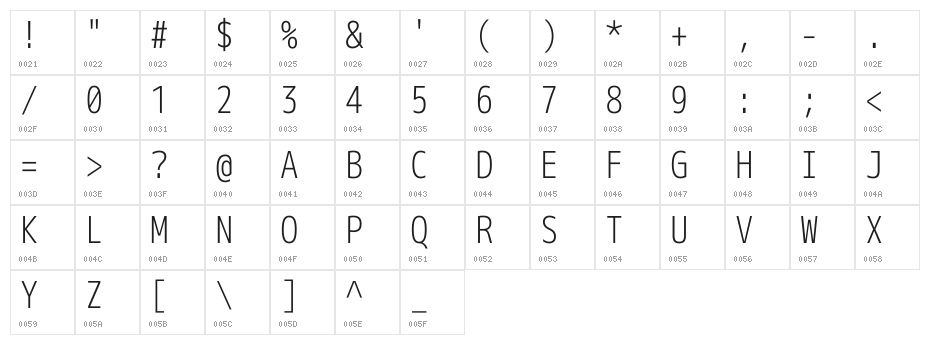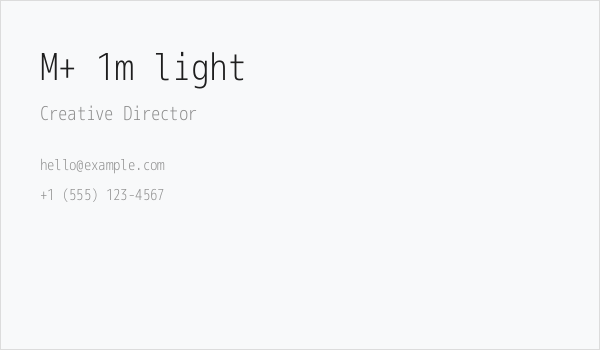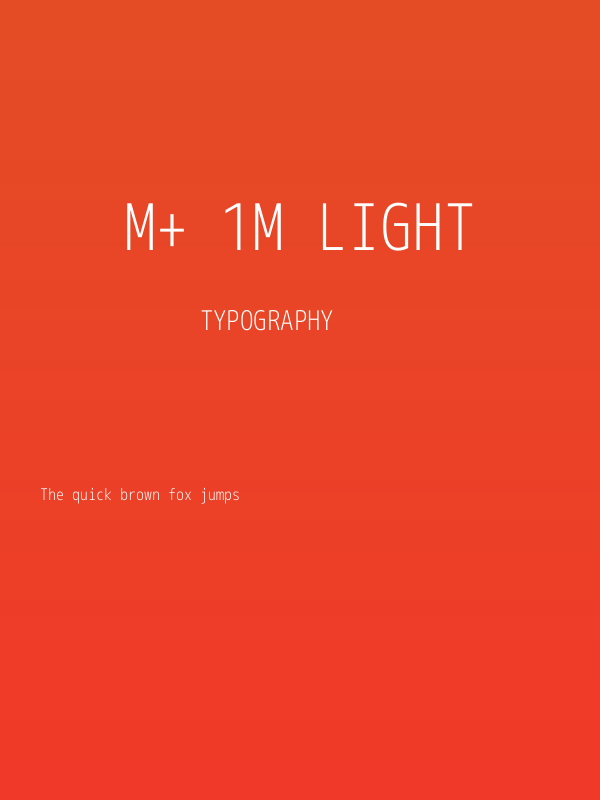
M+ 1m light Font
M+ 1m light Description
This font features a clean and modern sans-serif design with a light weight, offering a sleek and minimalist appearance. The characters are evenly spaced with a normal width, providing excellent readability. The uppercase and lowercase letters are well-proportioned, with a consistent stroke width that maintains a low contrast throughout. The numerals are clear and distinct, matching the overall style of the alphabet. Special characters are included, maintaining the same aesthetic, making it versatile for various applications. Its simplicity and clarity make it suitable for both digital and print media.
Use CaseHeadlines, Body text, Logos
Proposed ProjectsIdeal for web design, corporate branding, user interfaces, and minimalist print materials.